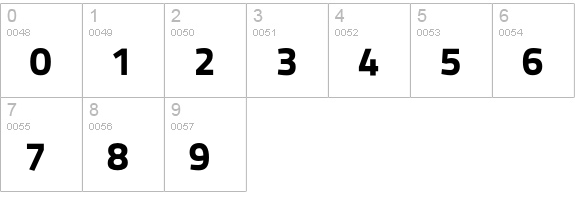
TitilliumText14L 999 wt Font Details
TitilliumText14L 999 wt is a versatile and modern font that exudes sophistication and elegance. With its bold weight and clean lines, this font is perfect for creating eye-catching designs that demand attention. Whether you're working on a logo, a poster, or a website, TitilliumText14L 999 wt will make your text stand out. The best part? This incredible font is completely free to download at FontsMarket.com. Simply visit the website and start using TitilliumText14L 999 wt in your projects today. Embrace the power of this stylish and impactful font to elevate your designs to the next level.